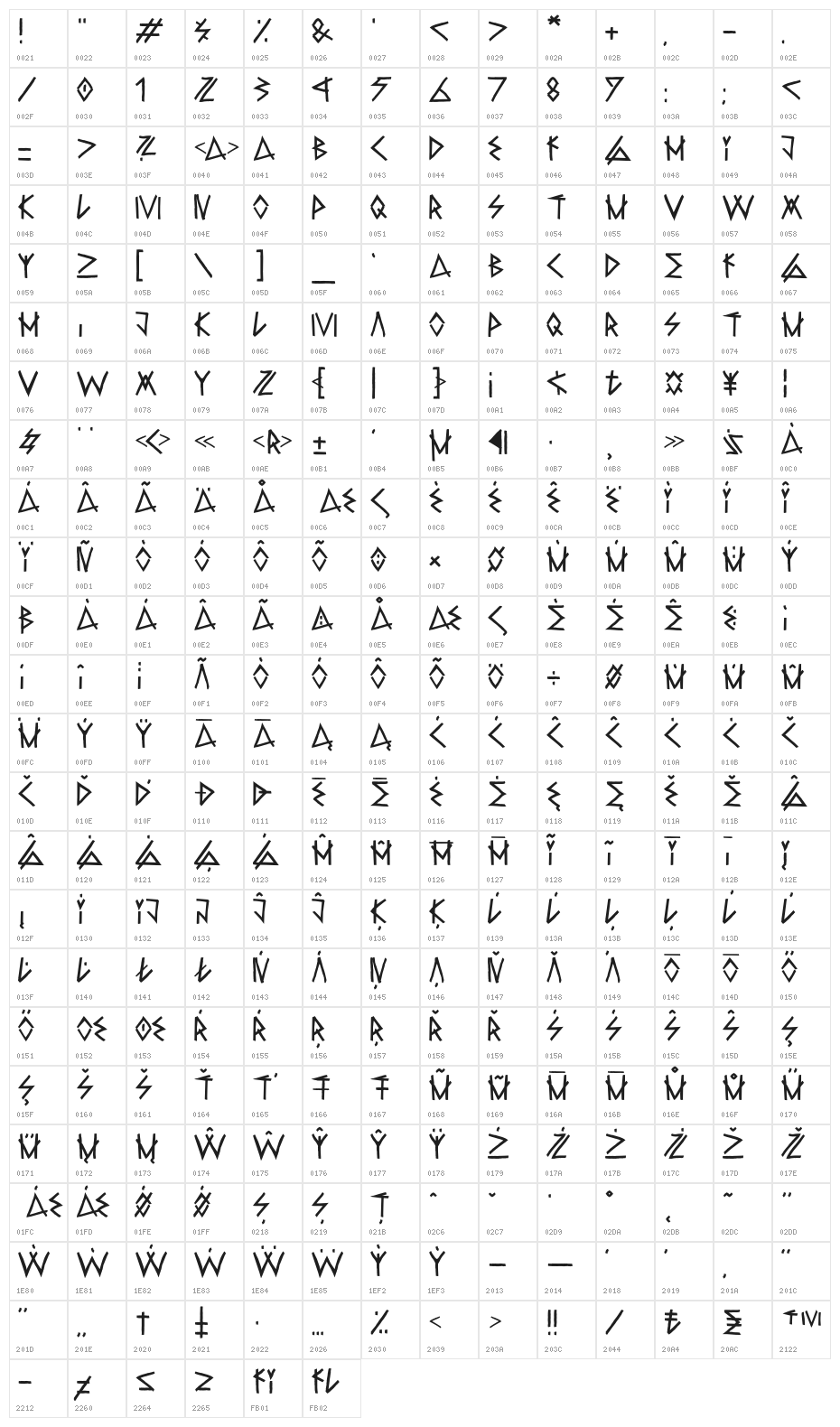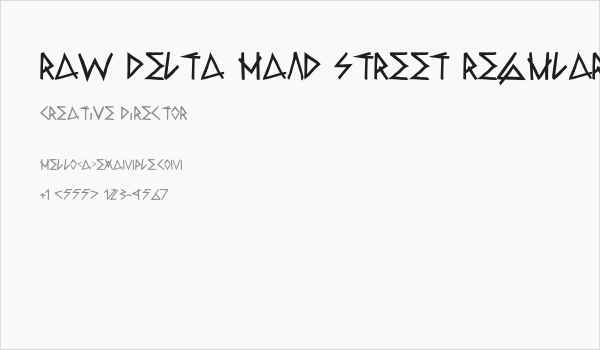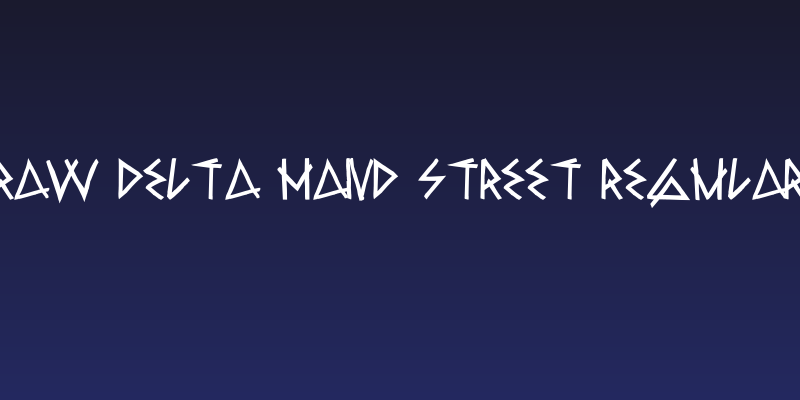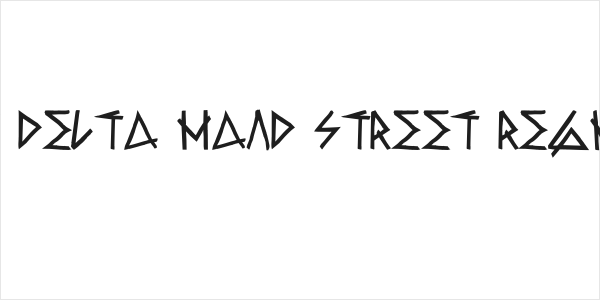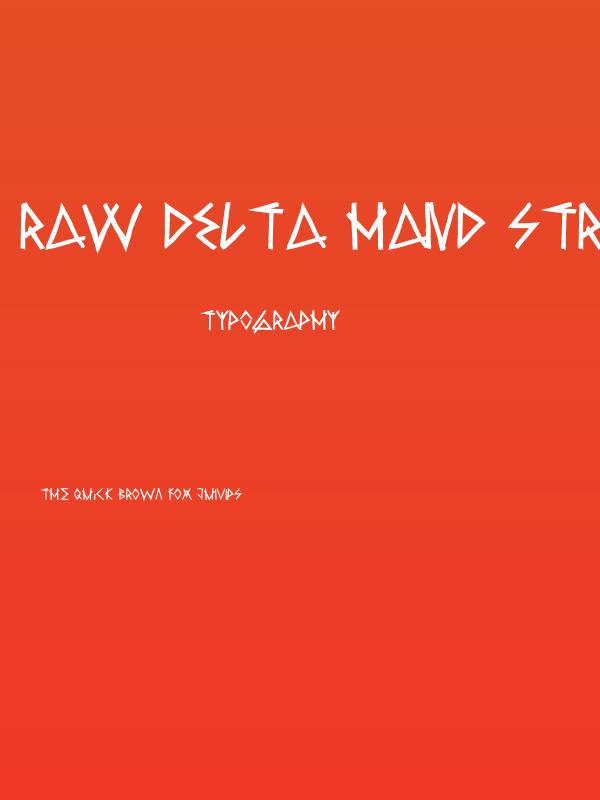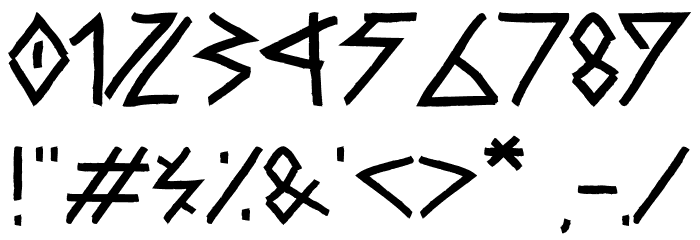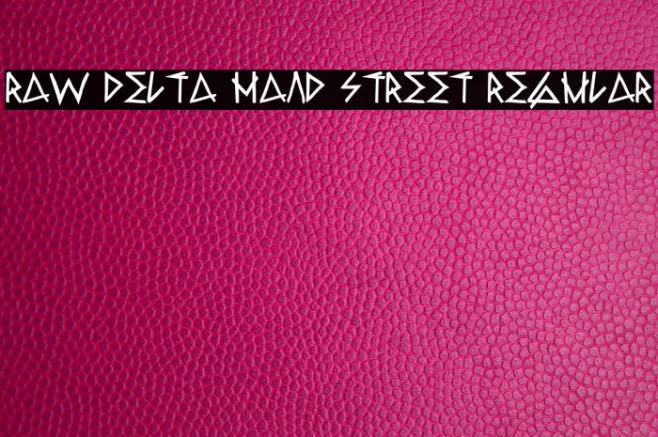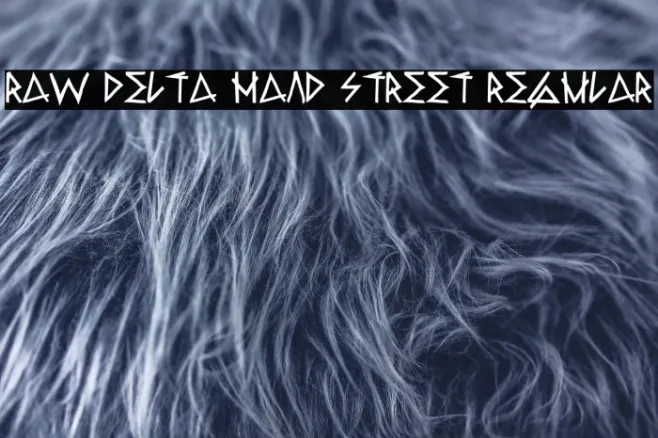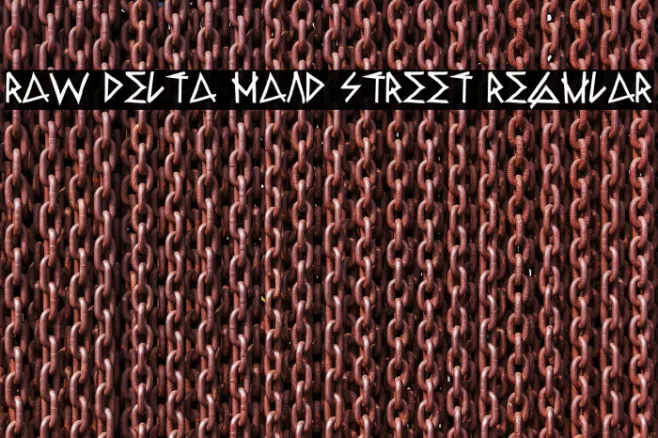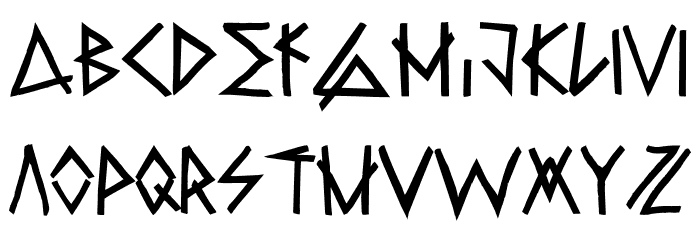
Raw Delta Hand Street Regular Font
Raw Delta Hand Street Regular Description
This font features a bold, angular design with a hand-drawn aesthetic, reminiscent of street art or graffiti. The characters are constructed with sharp, geometric lines, giving them a dynamic and edgy appearance. The uppercase and lowercase letters share a similar style, maintaining consistency throughout the typeface. Numbers and special characters are equally bold and angular, fitting seamlessly with the overall design. The font's unique style makes it stand out, ideal for projects that require a strong visual impact.
| Overall Style | Modern, Urban |
| Proposed Projects | Perfect for urban-themed designs, posters, album covers, and branding that requires a bold statement. |